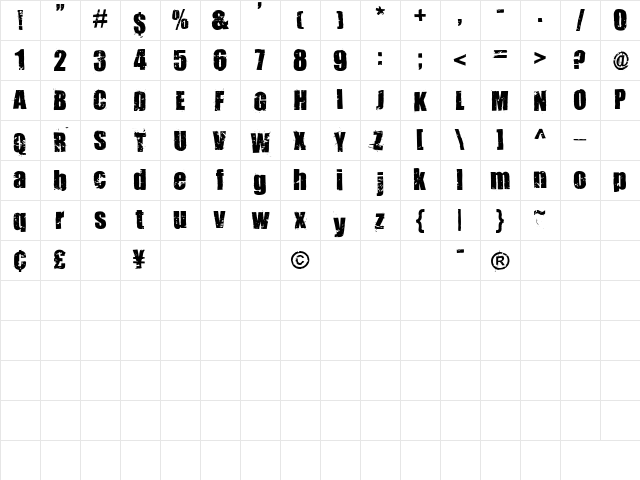
Complete 321impact Regular glyph index. Displaying only characters natively supported by 321impact Regular font.
321impact brings high-energy athletic personality to the page - its confident, muscular forms are built for impact.
Pro Tip: Use 321impact in all-caps headlines where its athletic energy can fully express itself. Pair with a solid, simple sans for supporting text.